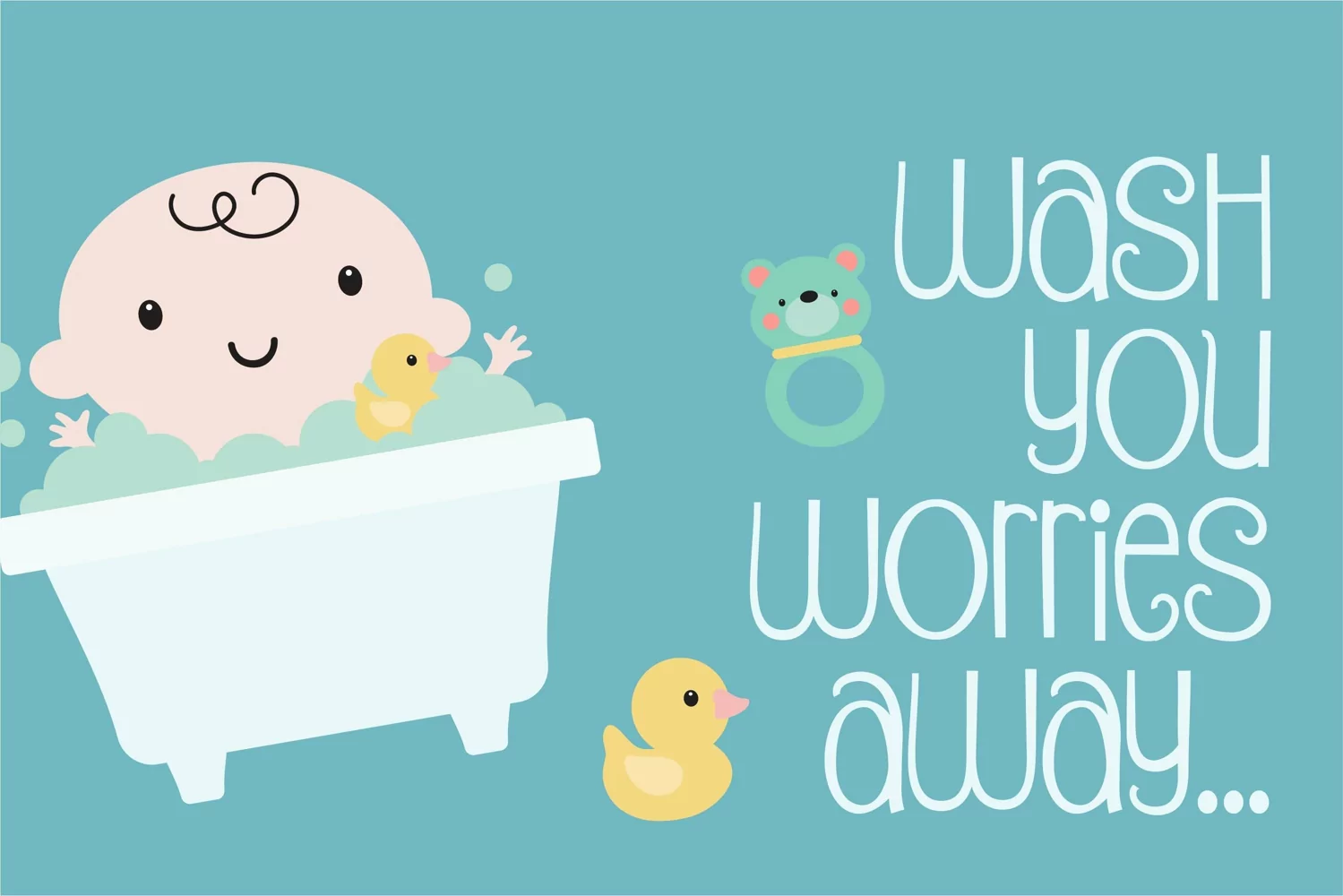
Angel Toes and Angel Baby are cute and casual handwritten fonts.Their playful style makes it perfect for any design you can think of. Add it with confidence to your creative projects, and notice how they capture everyone’s attention! Includes Angel Baby and Angel Toes.